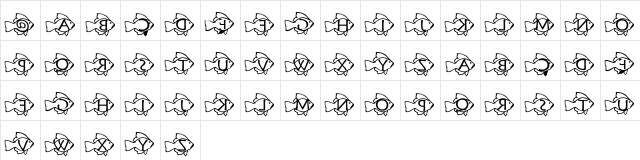
pf_gfish_backwards1 Regular Font Preview
pf_gfish_backwards1 Regular
Design Context for pf_gfish_backwards1 Typeface
pf_gfish_backwards1 is a composed and adaptable typeface that performs quietly and consistently across a wide range of design contexts.
Pro Tip: Use pf_gfish_backwards1 in both headline and body roles to test its range before committing to a single application.